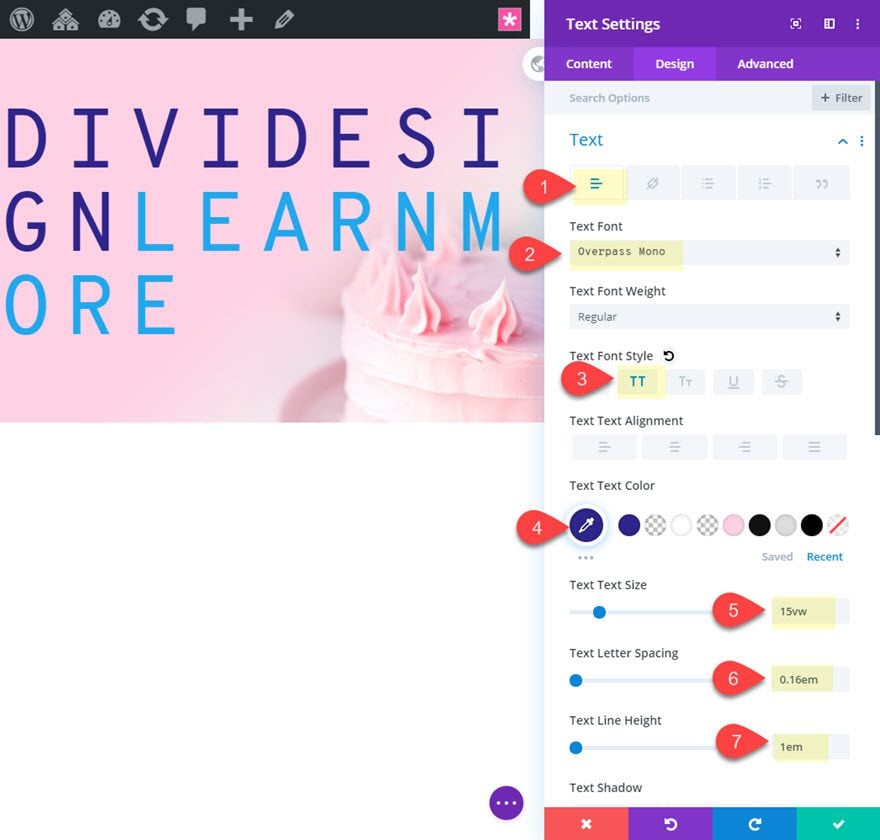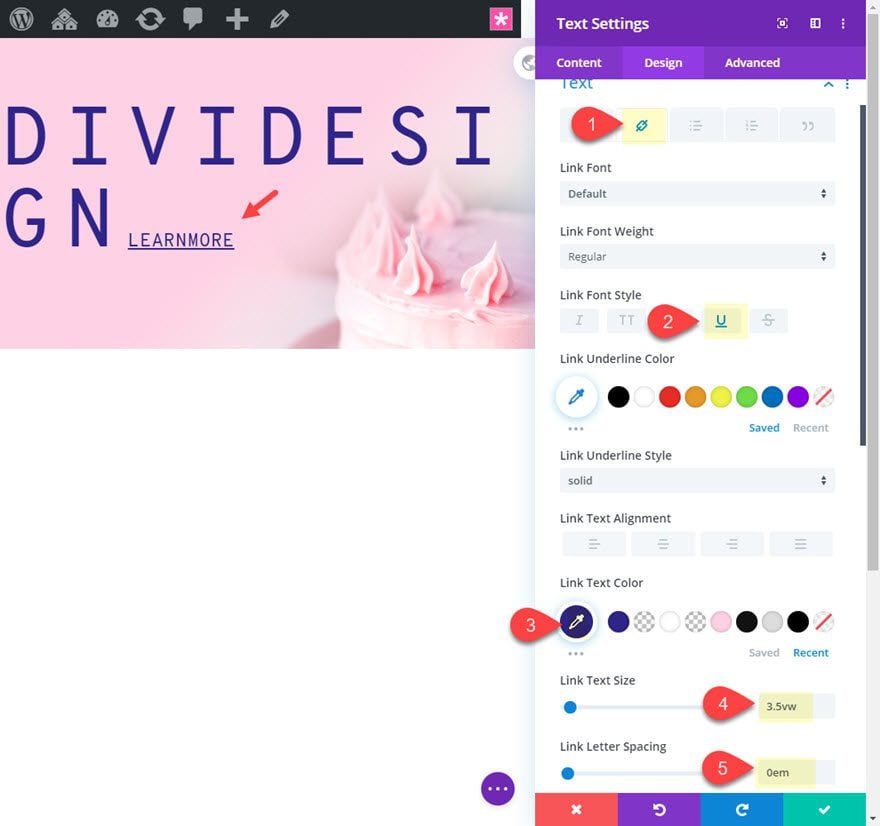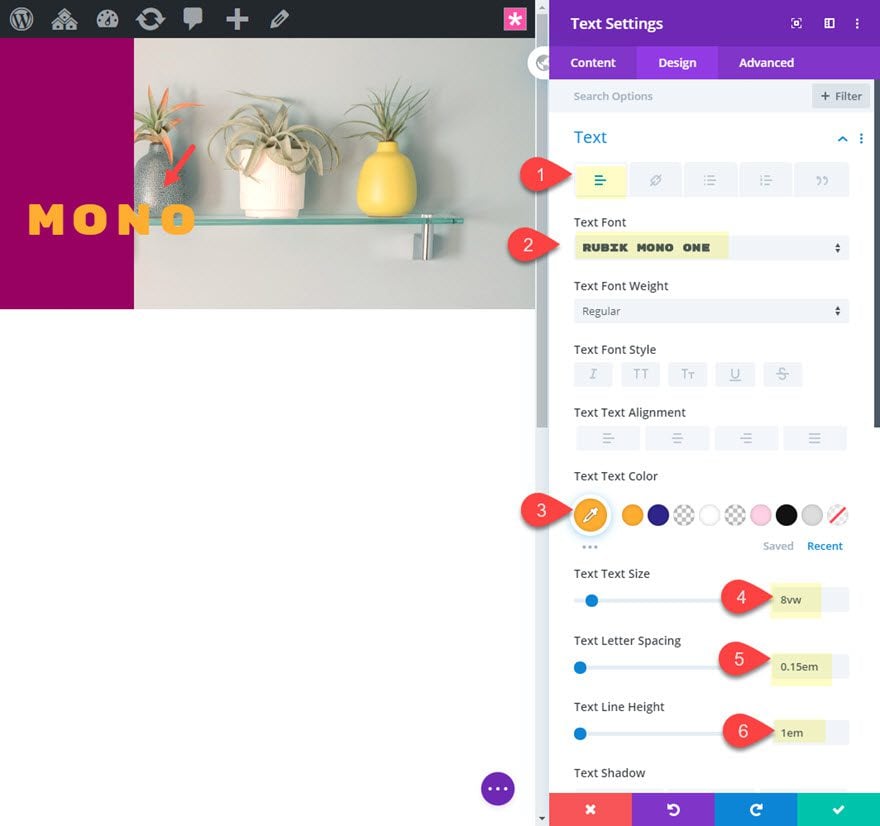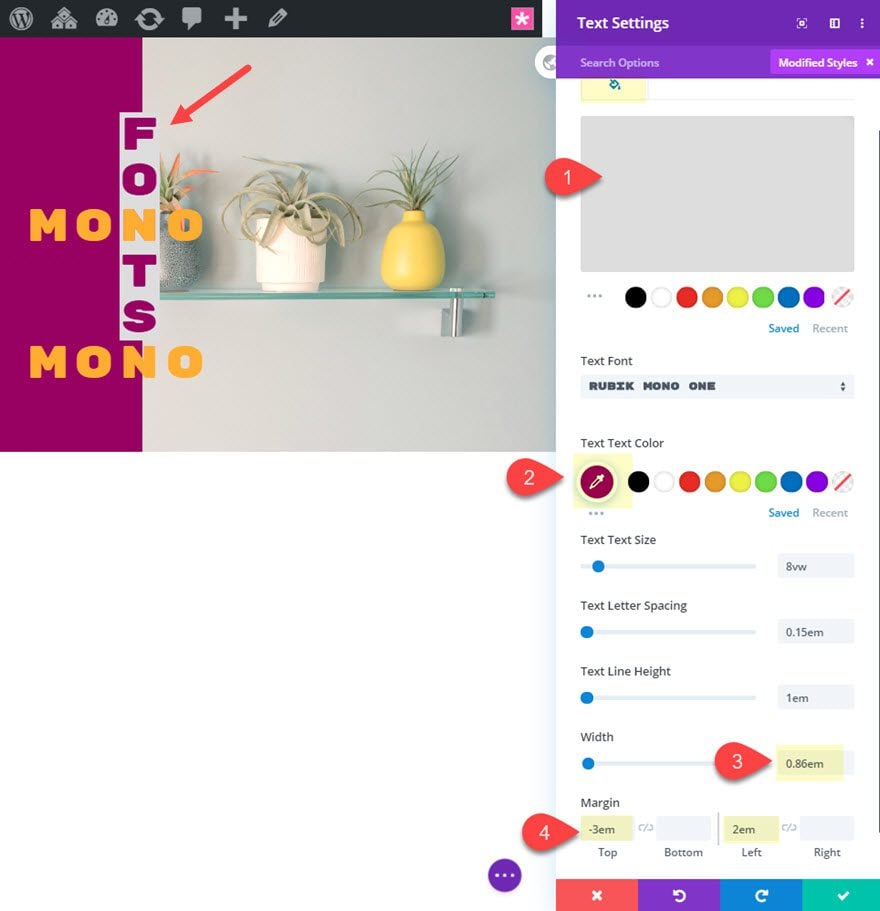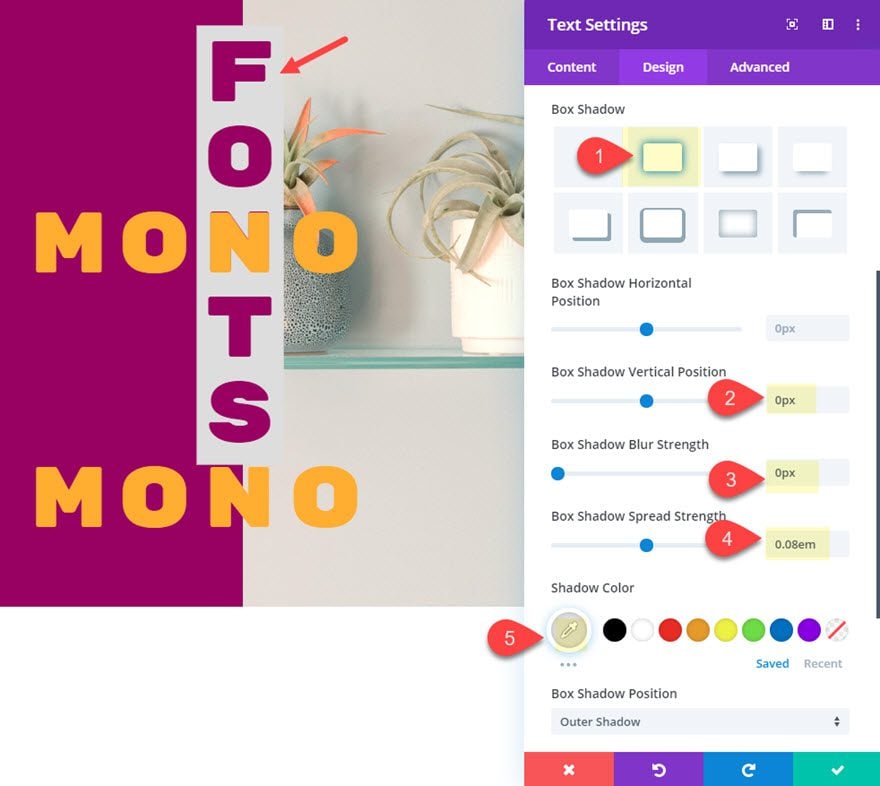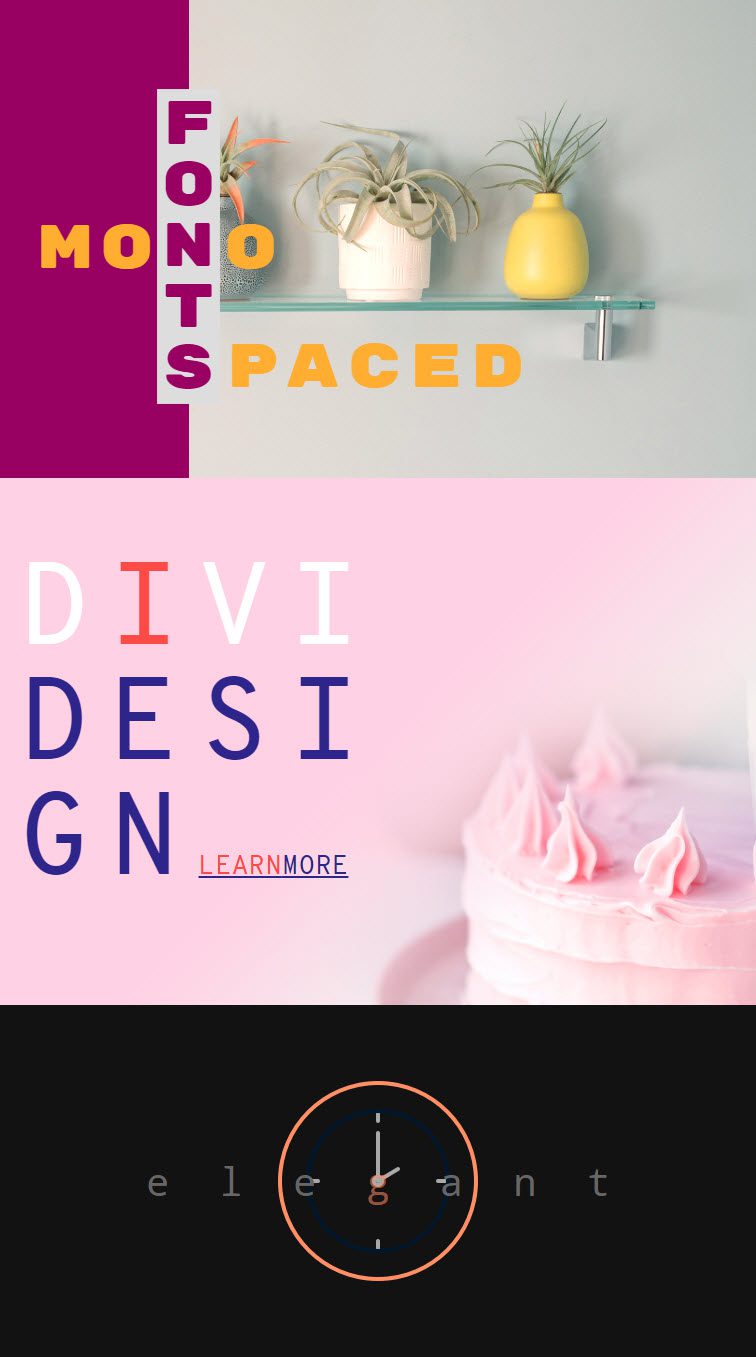
How to Create 3 Stunning Monospaced Font Designs in Divi
Monospaced fonts are a delightful asset to web design. They are especially useful for creating designs that have beautiful symmetry and balance. A monospaced font is made up of letters and characters that each have the same width (or horizontal space). As such, they provide a consistent and elegant structure for displaying text. Monospaced fonts are widely used in coding for this reason.
In this tutorial, we are going to create three stunning monospaced font designs in Divi. We will go over how to properly customize text modules to position and design monospaced fonts in some pretty unique ways, and much more.
Monospaced Font Design #1: Logo Style
divi monospaced font designs
Monospaced Font Design #2: Large Letter Blocks
divi monospaced font designs
Monospaced Font Design #3: CrossWord Puzzle
divi monospaced font designs